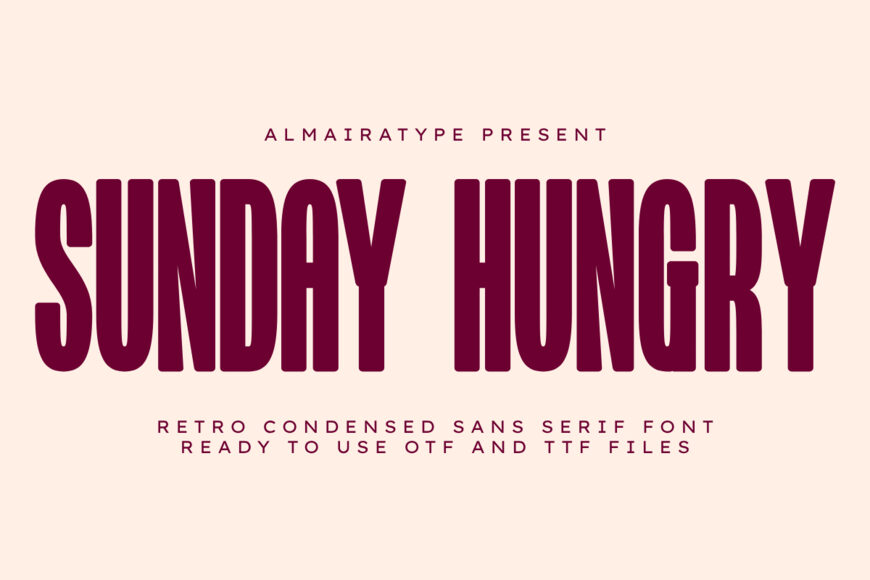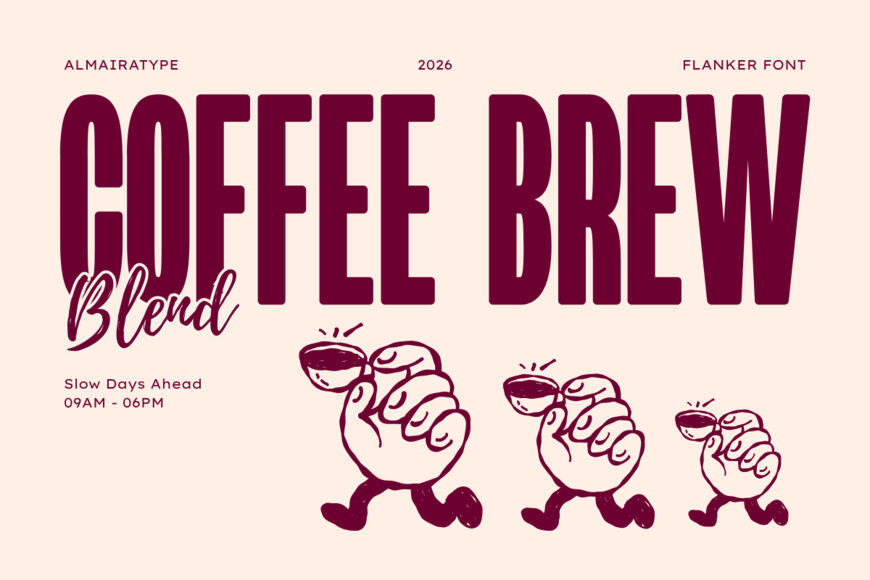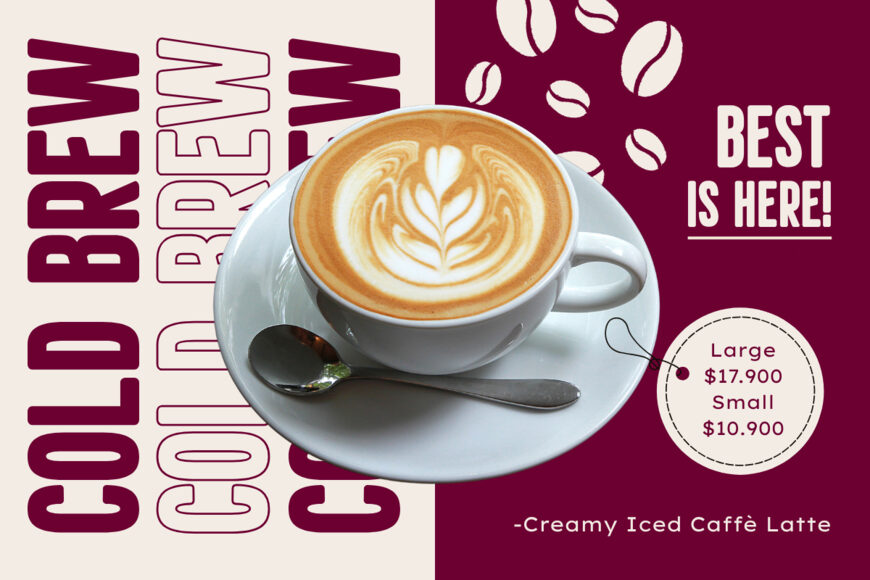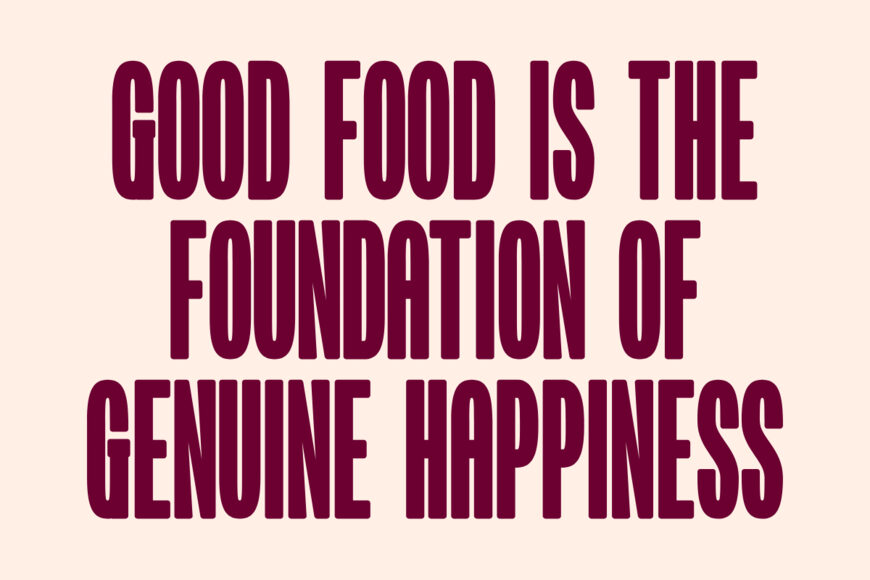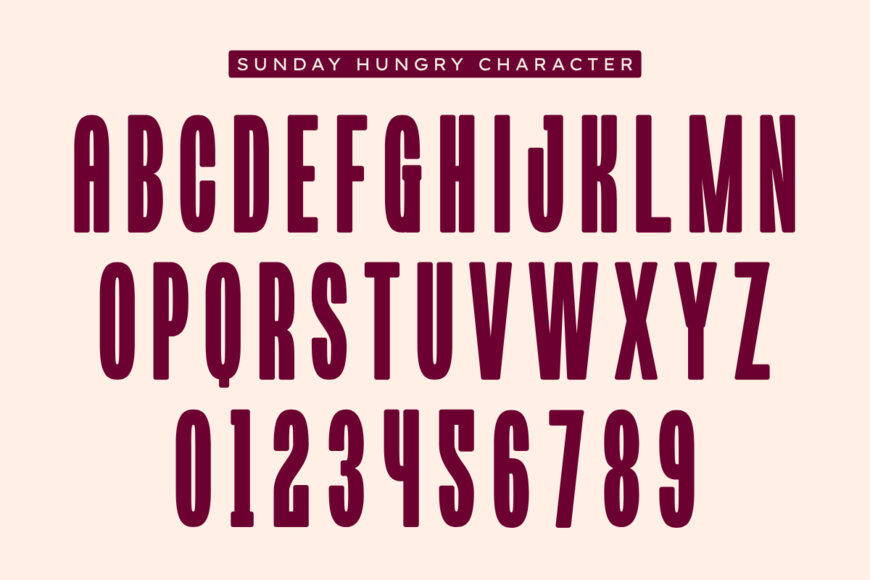
Sunday Hungry is a bold retro condensed sans serif font meticulously designed to bring a delightful vintage warmth and high-impact aesthetic to your modern creative projects. Featuring a robust, compressed structural anatomy and friendly playful contours, this typeface beautifully bridges the gap between classic 70s nostalgia and contemporary commercial design trends.